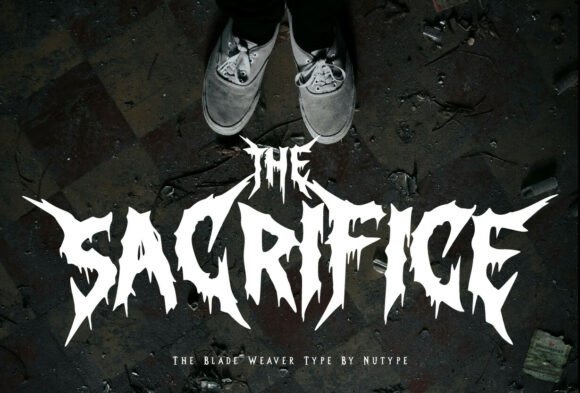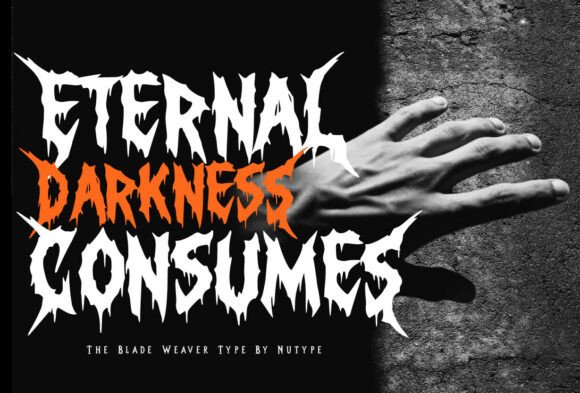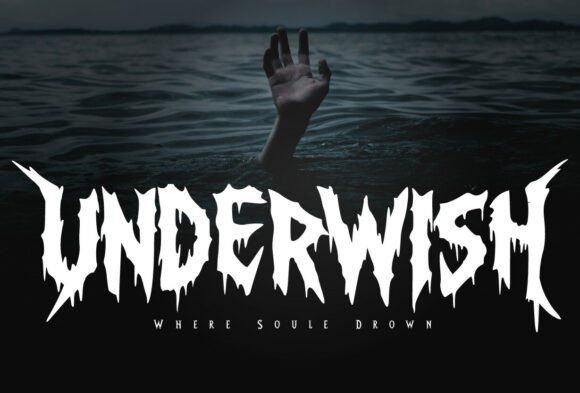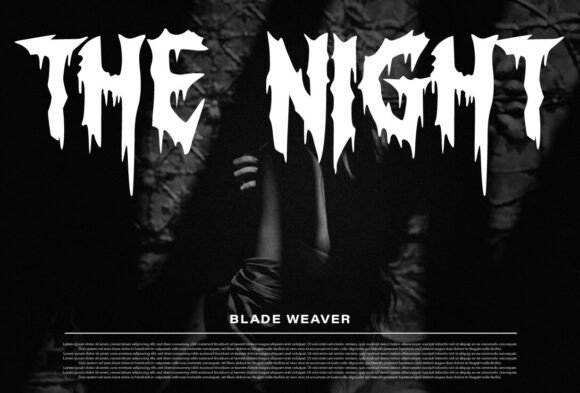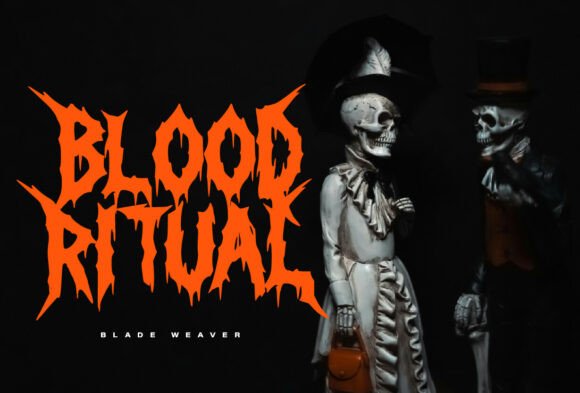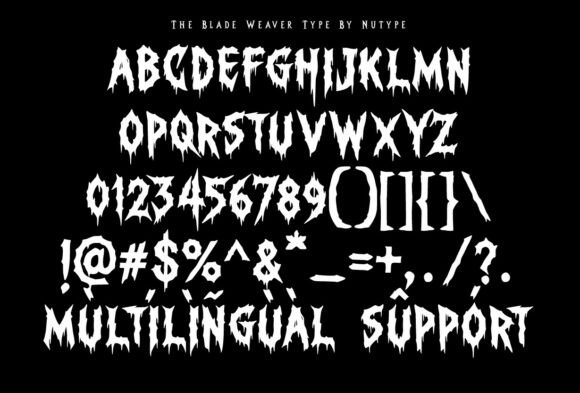
Unleash the Horror: Introducing Blade Weaver Font
Are you a designer or crafter looking for a typeface that can add a touch of darkness and eeriness to your projects? Look no further than Blade Weaver Font, a horror display typeface that is sure to bring your designs to life. With its sharp, distorted strokes and dark fantasy aesthetic, Blade Weaver is perfect for creating spooky, chaotic, and energetic visuals that will leave a lasting impression.
What is Blade Weaver Font?
Blade Weaver is a horror display typeface that features over 40 alternates, giving you a wide range of options to choose from. This font is designed to give your projects a bold and eerie personality, making it perfect for horror posters, movie titles, game logos, metal band artwork, Halloween designs, YouTube thumbnails, album covers, and branding projects that require a strong sense of dread.
Key Features of Blade Weaver Font
- Sharp, Distorted Strokes: Blade Weaver’s unique strokes are sharp and distorted, giving it a dark and eerie feel.
- Dark Fantasy Aesthetic: This font has a dark fantasy aesthetic that is perfect for creating spooky and chaotic visuals.
- Over 40 Alternates: With over 40 alternates, you can choose from a wide range of options to find the perfect look for your project.
- Underground Aesthetic: Blade Weaver has an underground aesthetic that is perfect for creating edgy and bold designs.
Perfect for Horror and Dark Designs
Blade Weaver Font is perfect for designers and crafters who want to create horror-themed designs that will leave a lasting impression. Whether you’re creating a poster for a horror movie, a logo for a metal band, or a design for a Halloween party, Blade Weaver has got you covered. Its bold and eerie personality is sure to add a touch of darkness to your projects.
Use Cases for Blade Weaver Font
- Horror Posters: Create eye-catching posters for horror movies or haunted houses with Blade Weaver’s bold and eerie font.
- Movie Titles: Add a touch of horror to your movie titles with Blade Weaver’s sharp and distorted strokes.
- Game Logos: Create a logo for your horror-themed game with Blade Weaver’s dark fantasy aesthetic.
- Metal Band Artwork: Design a bold and edgy logo for your metal band with Blade Weaver’s underground aesthetic.
- Halloween Designs: Create spooky and chaotic designs for Halloween parties or events with Blade Weaver’s over 40 alternates.
- YouTube Thumbnails: Add a touch of horror to your YouTube thumbnails with Blade Weaver’s bold and eerie font.
- Album Covers: Design a bold and edgy album cover for your music project with Blade Weaver’s dark fantasy aesthetic.
- Branding Projects: Use Blade Weaver’s bold and eerie personality to create a strong sense of dread for your branding projects.
Why Choose Blade Weaver Font?
Blade Weaver Font is a valuable addition to any design toolkit. Its unique and bold design makes it perfect for creating powerful and memorable visuals. With its over 40 alternates, you can choose from a wide range of options to find the perfect look for your project. Whether you’re a designer or crafter, Blade Weaver Font is sure to help you create stunning designs that will leave a lasting impression.
In conclusion, Blade Weaver Font is a horror display typeface that is perfect for designers and crafters who want to add a touch of darkness and eeriness to their projects. With its sharp, distorted strokes, dark fantasy aesthetic, and over 40 alternates, Blade Weaver is sure to bring your designs to life. Whether you’re creating horror posters, movie titles, game logos, or branding projects, Blade Weaver Font is a valuable addition to your design toolkit.